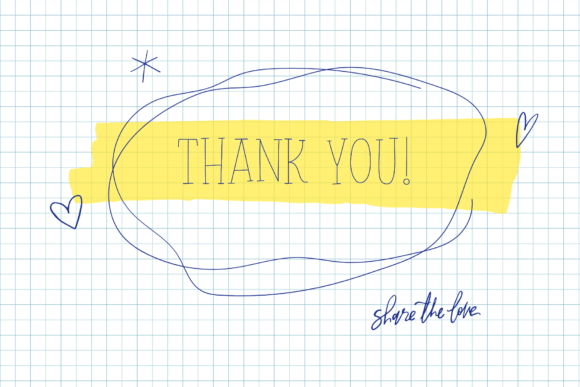
Worry Line is a minimal and neat serif single-line font. It can easily be matched to an incredibly large set of projects, so add it to your creative ideas and notice how it makes them stand out!
Worry Line Font